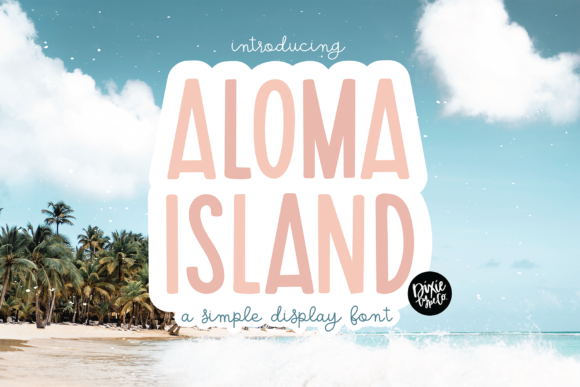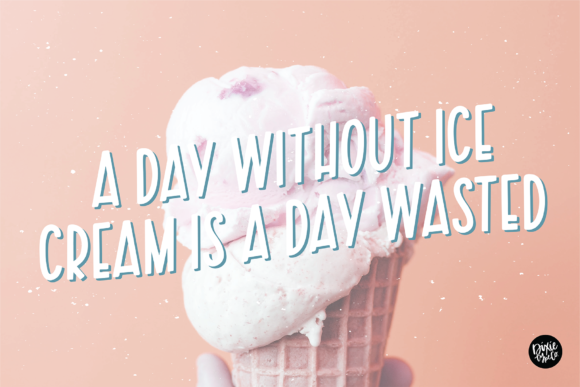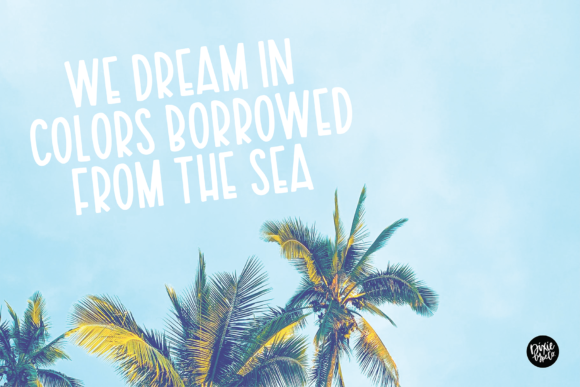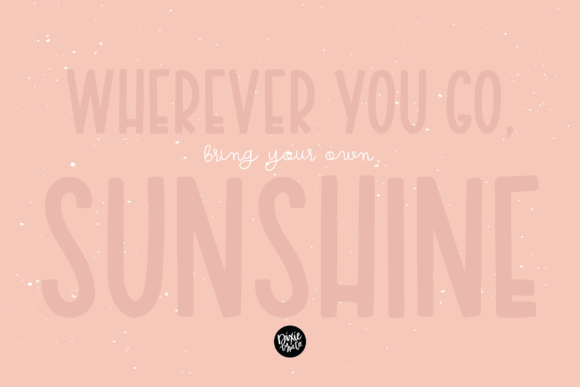
Aloma Island Font: A Playful Display Font for Summer Designs & Branding!
About the Aloma Island Font
Meet Aloma Island Font, a stunning font that brings a touch of elegance and professionalism to any design. Aloma Island is a classic and simple sans serif font. It can easily be matched to an incredibly large set of projects, so add it to your creative ideas and notice how it makes them stand out!
Aloma Island’s clean lines and neutral aesthetic make it ideal for branding applications, particularly logos and short headlines. It also works well on packaging where clear readability is crucial, and in posters requiring a modern, uncluttered feel. However, its simplicity might prove limiting for large blocks of body text or lengthy paragraphs, and it’s not well-suited to user interfaces where high legibility at small sizes is paramount.
The font projects a friendly yet sophisticated personality. To complement this, consider pairing Aloma Island with a warmer serif like Playfair Display for a touch of elegance or a geometric sans-serif like Montserrat for a contemporary feel. For a more playful approach, a handwritten script like Pacifico could be used sparingly as an accent.
Its neutral character allows for diverse applications, making it a versatile yet understated choice.
Aloma Island Font Usage Examples
Aloma Island Font Example